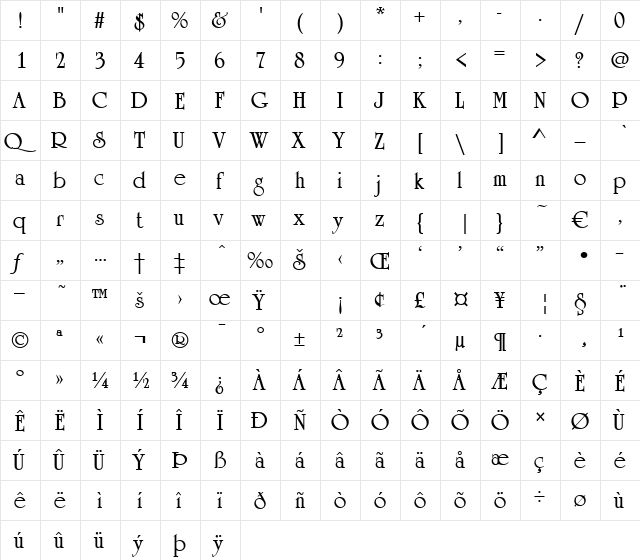
Cambridge Regular
Design Context for Cambridge Typeface
Cambridge takes a measured approach to typography — its balanced proportions and neutral character make it a reliable workhorse for both digital and print work.